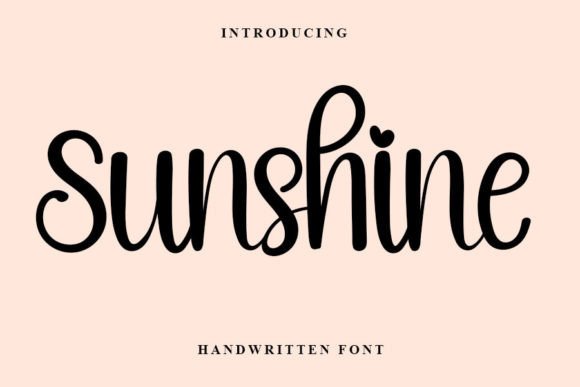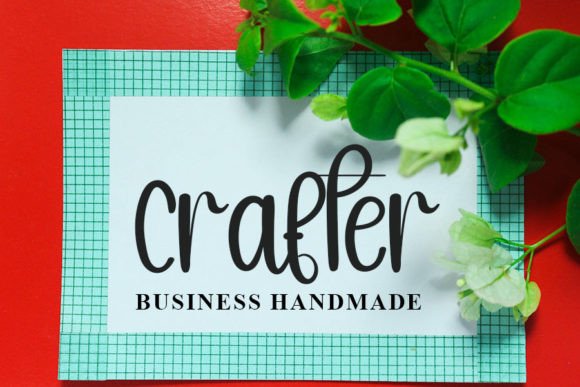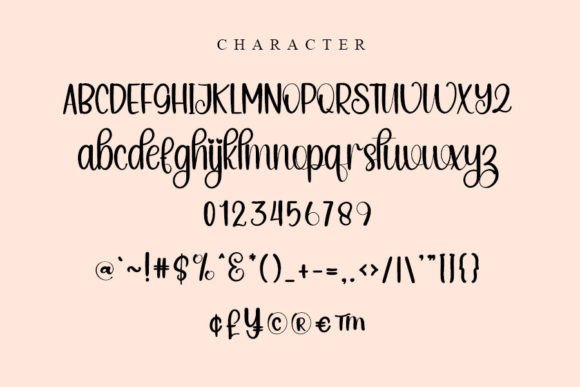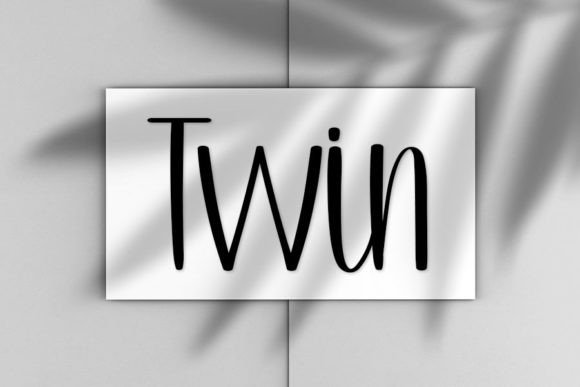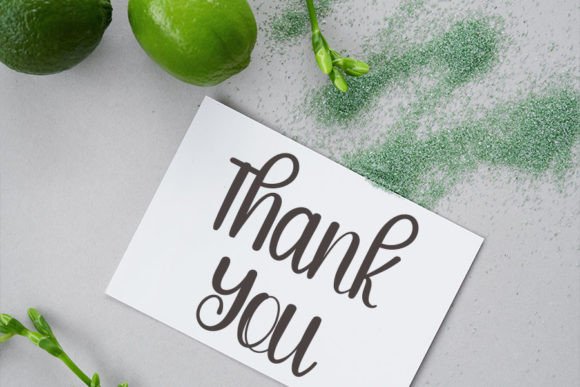
Sunshine Font
About Sunshine Font
Sunshine font is a warm and friendly handwritten typeface, thoughtfully crafted to become a favorite among designers and creatives. Its bright and inviting style brings a cheerful touch to every project. Whether you’re working on branding, invitations, or social media graphics, Sunshine font adds a natural and uplifting feel that makes your designs stand out.
Bright and Approachable Style
With smooth, flowing strokes and balanced letterforms, Sunshine font captures the essence of genuine handwriting. Its legibility and charm make it perfect for projects that require a personal yet professional appearance. This font’s friendly vibe helps convey warmth and optimism, making your work instantly more engaging.
Downloading Sunshine font gives you access to a versatile typeface suitable for various design needs. It adapts seamlessly across digital and print media, allowing you to create beautiful logos, cards, and more. Sunshinefont is ideal for anyone looking to add a bright, handcrafted touch to their work.
Ideal Applications for Sunshine Font
Sunshinefont works well in many contexts, including:
• Logo design and branding
• Wedding and event invitations
• Social media posts and marketing materials
• Packaging and product labels
• Personal projects like journals and scrapbooking
Its lively and inviting style ensures your projects shine with creativity and personality.
In summary, Sunshinefont is a friendly handwritten font that brightens any creative project. Download Sunshinefont today to add warmth and charm to your designs.